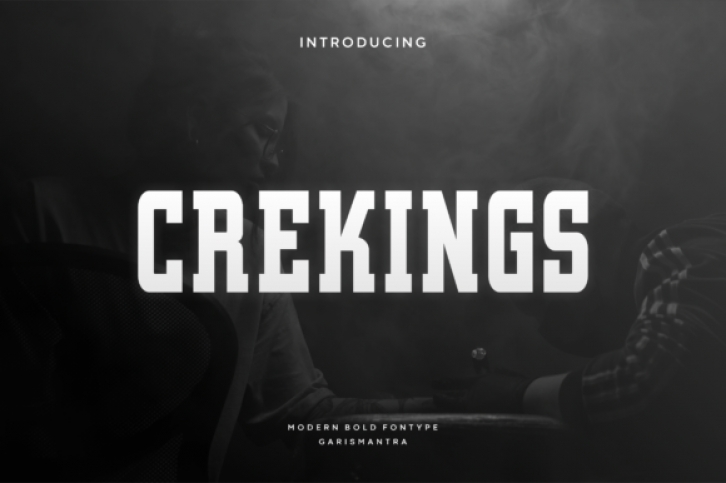
Crekings is a bold and thick lettered display font. Masterfully designed to become a true favorite, this font has the potential to bring each of your creative ideas to the highest level!